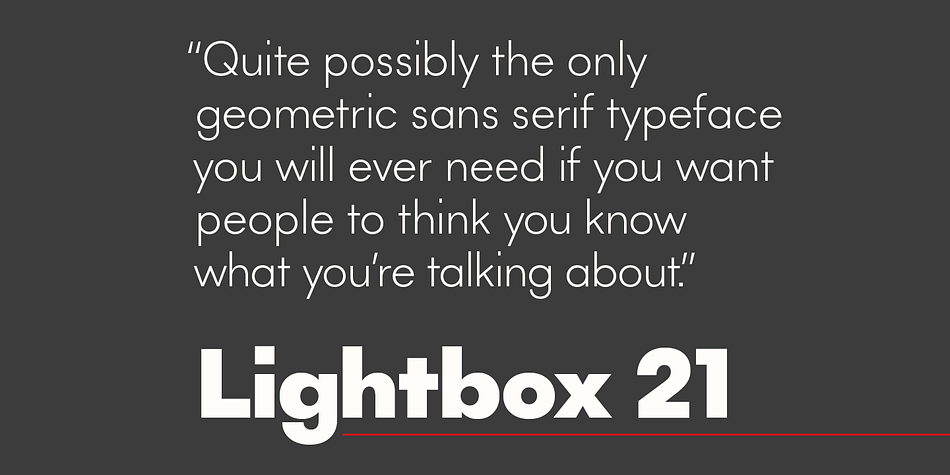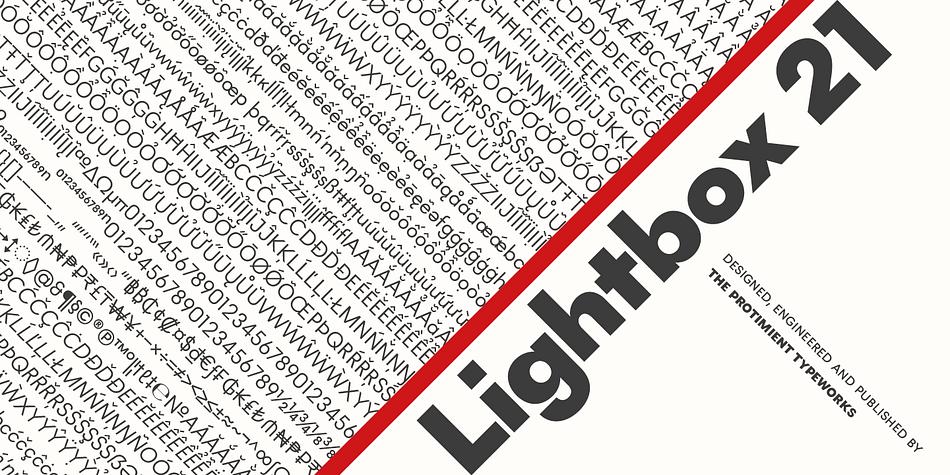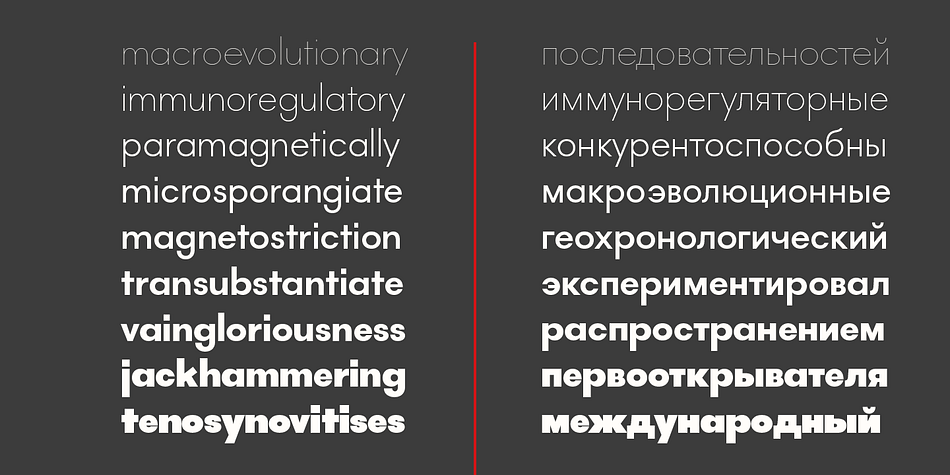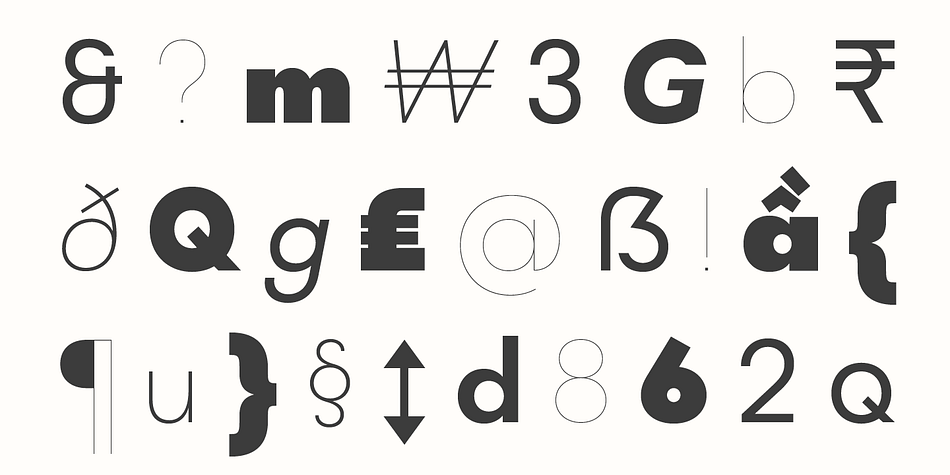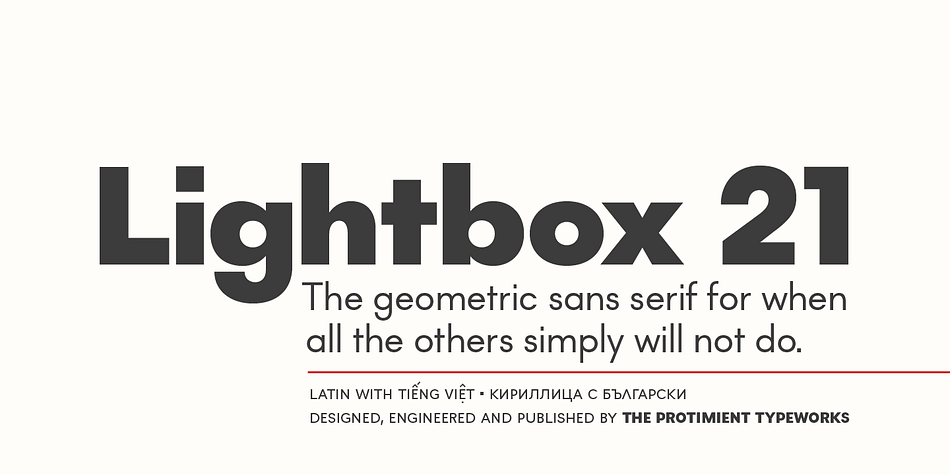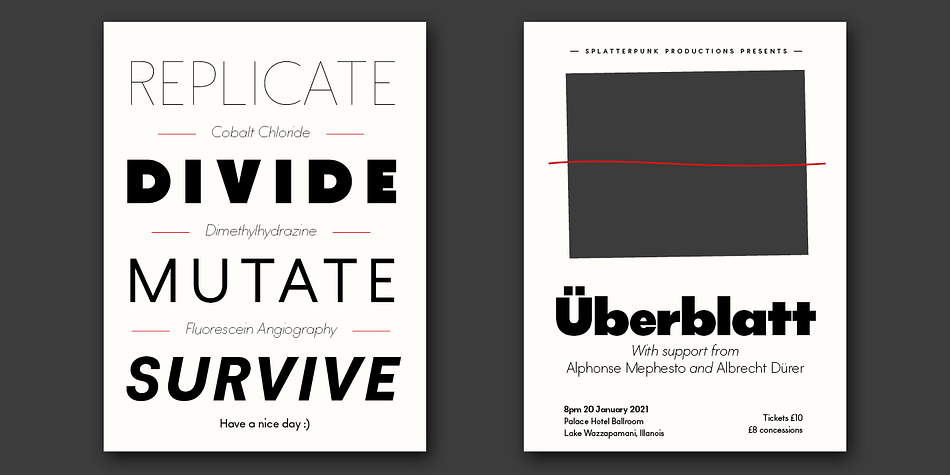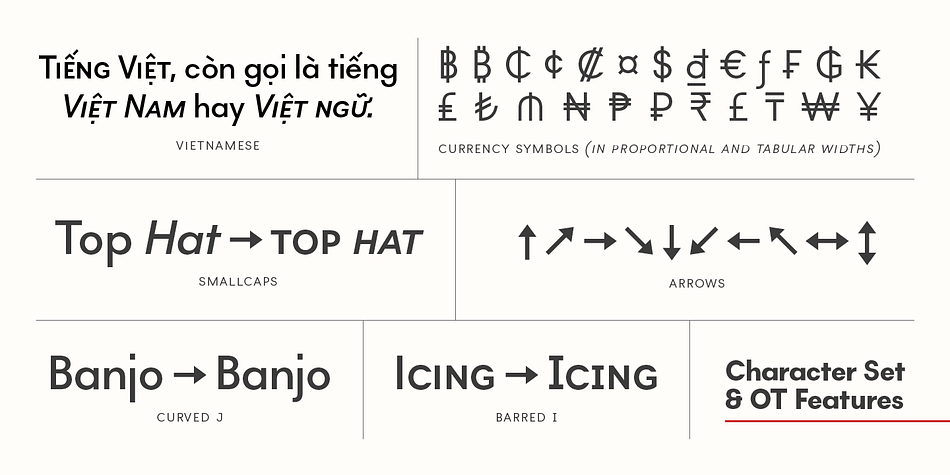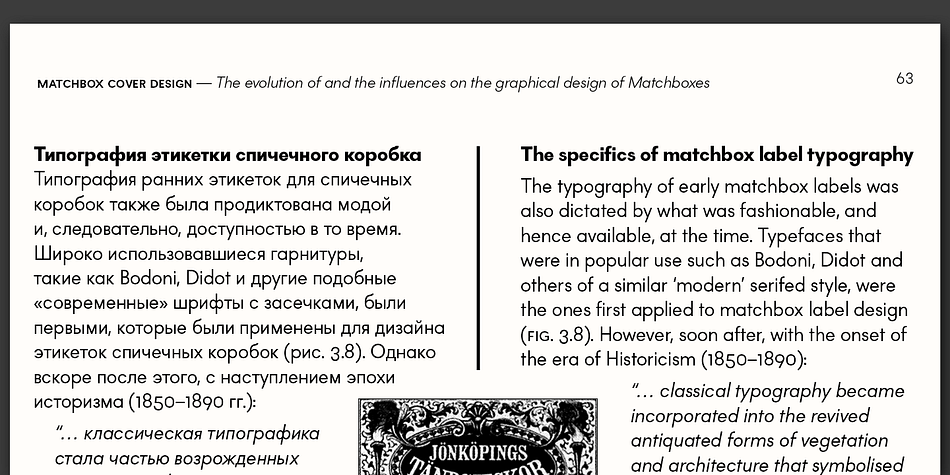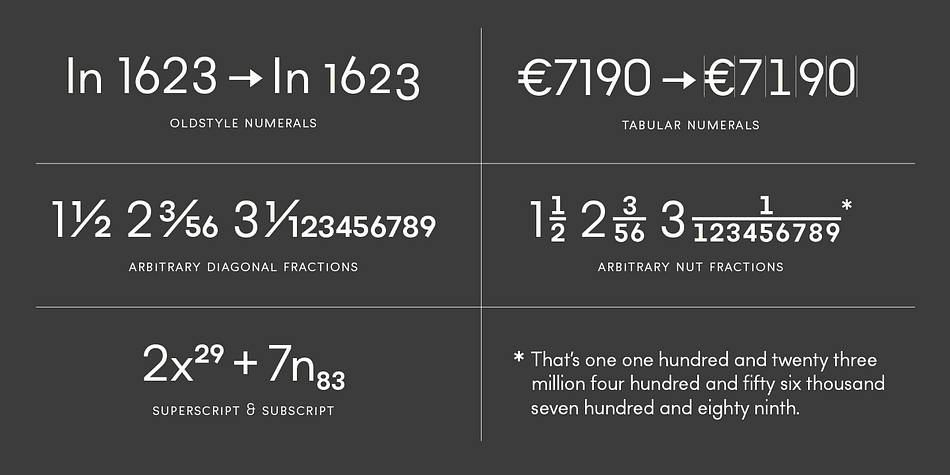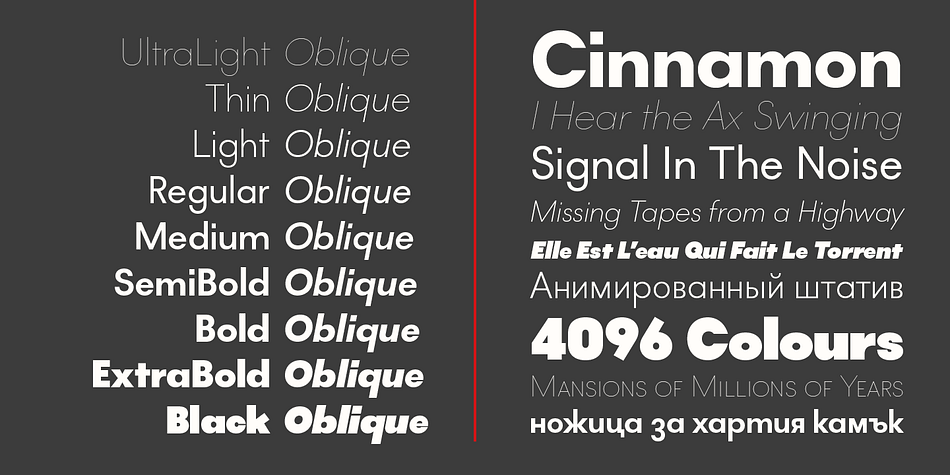
Lightbox 21 is a sans serif font family. This typeface has eighteen styles and was published by Protimient.
Lightbox 21 is a radical update of my previous version of a geometric sans serif. The design of the original Lightbox was fundamentally based on the idea of incorporating the proportions of the ‘Golden Ratio’ into each letterform; Lightbox 21 greatly improves on this concept by entirely abandoning it. The result is a much more readable, ‘natural’ typeface that retains elements of the original without being bound to it.
Overall, Lightbox 21 has been designed to convey that classic feel of a geometric sans that makes the genre so tremendously enduring and versatile, as well as providing an effortless sense of class to whatever they are applied.
Primarily intended for editorial work (i.e. short to medium length texts) or display settings, Lightbox 21 has a reasonably extensive character set, including support for Vietnamese, many currency symbols, arrows, and small caps. It also has OpenType support for nut fractions (via a stylistic set) and a barred alternate uppercase i and an alternate curled j.